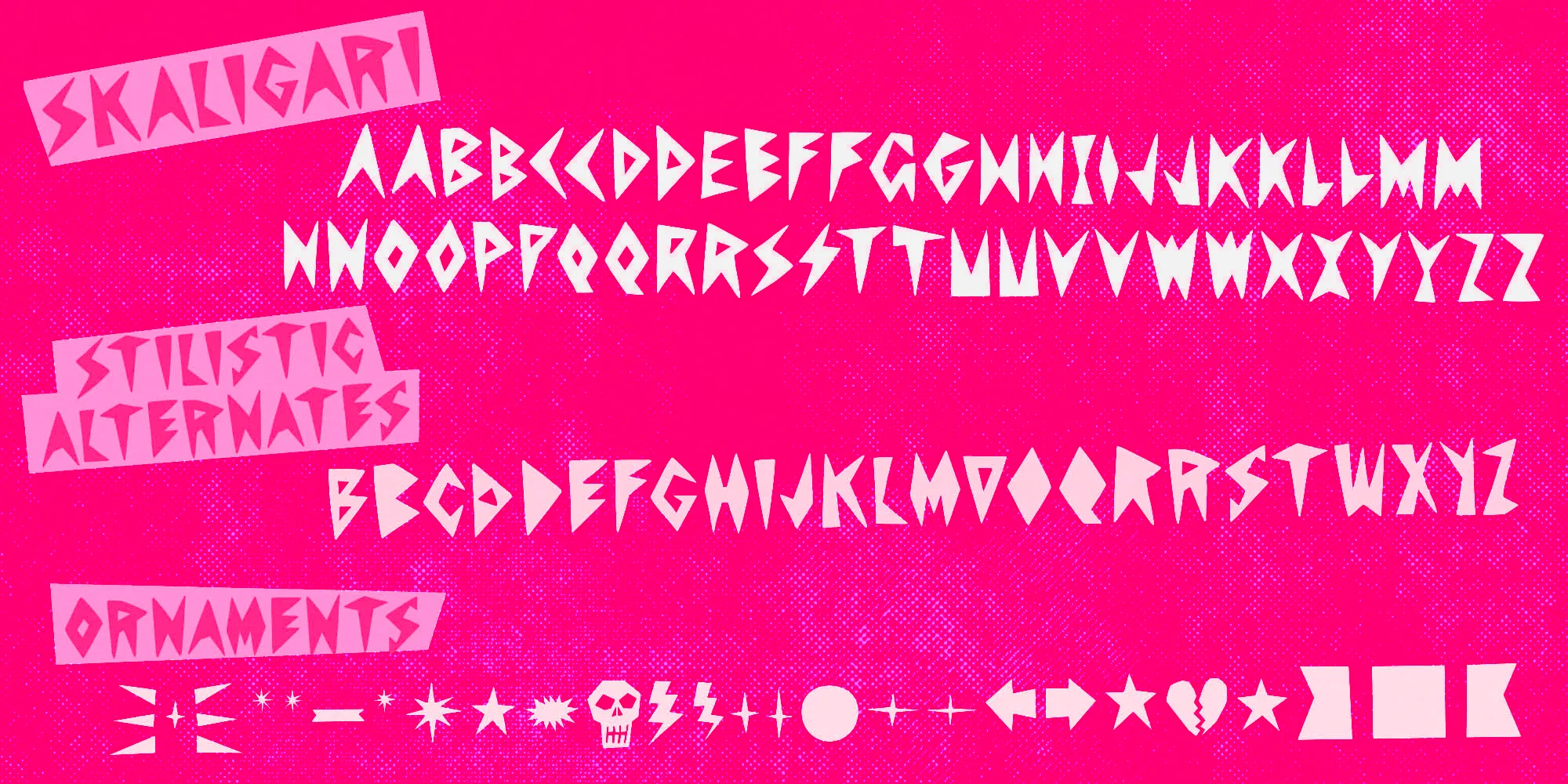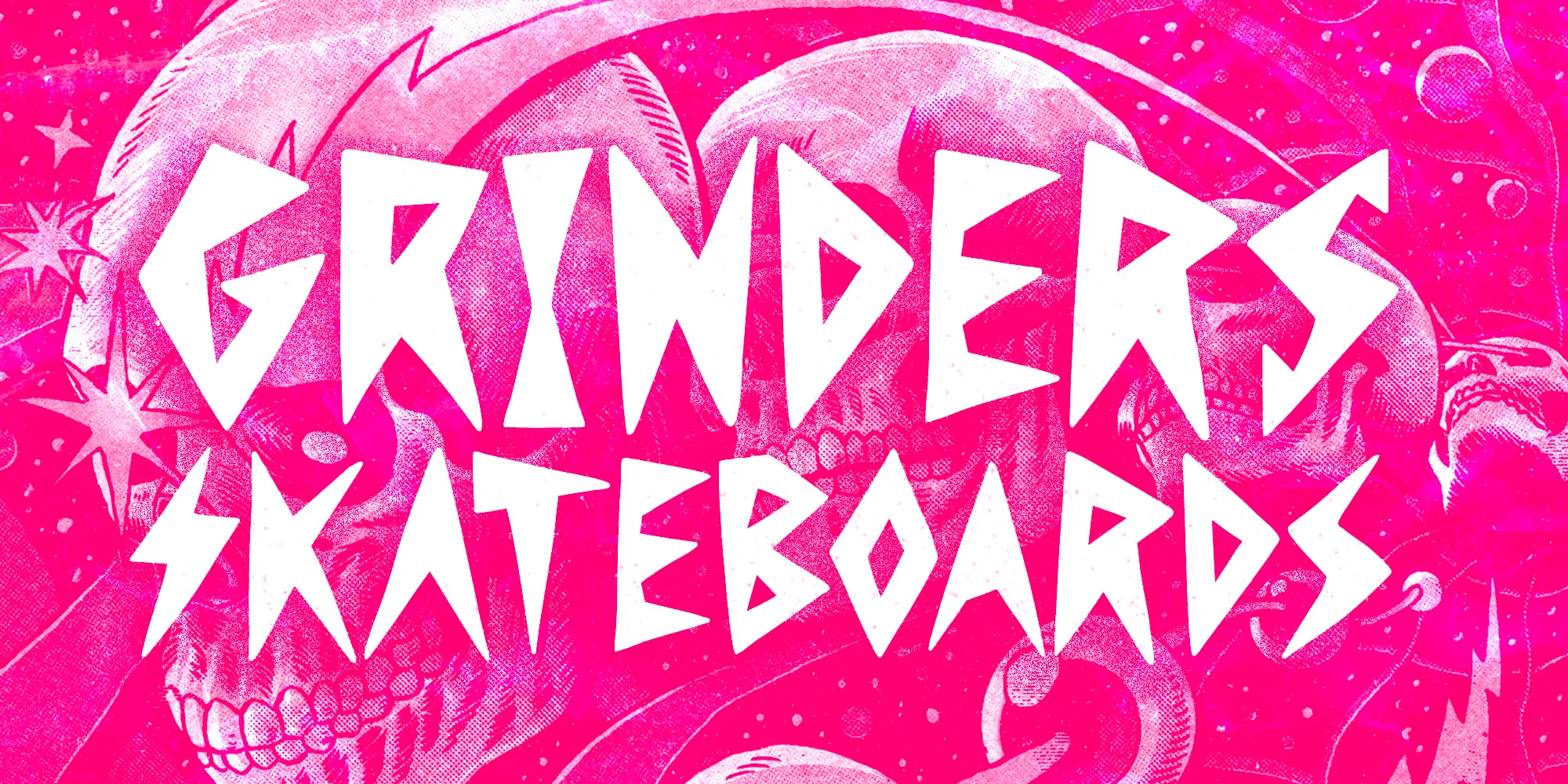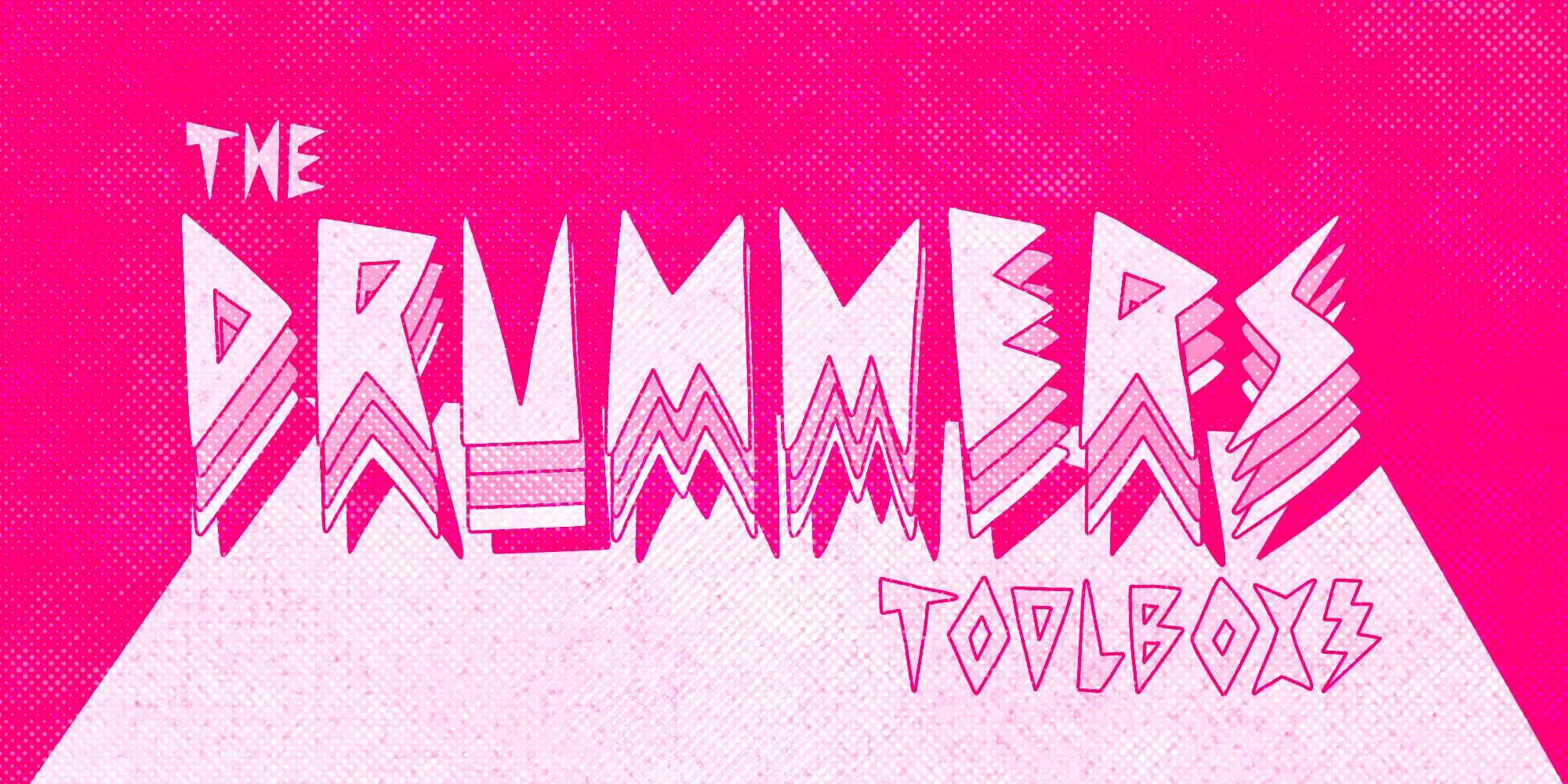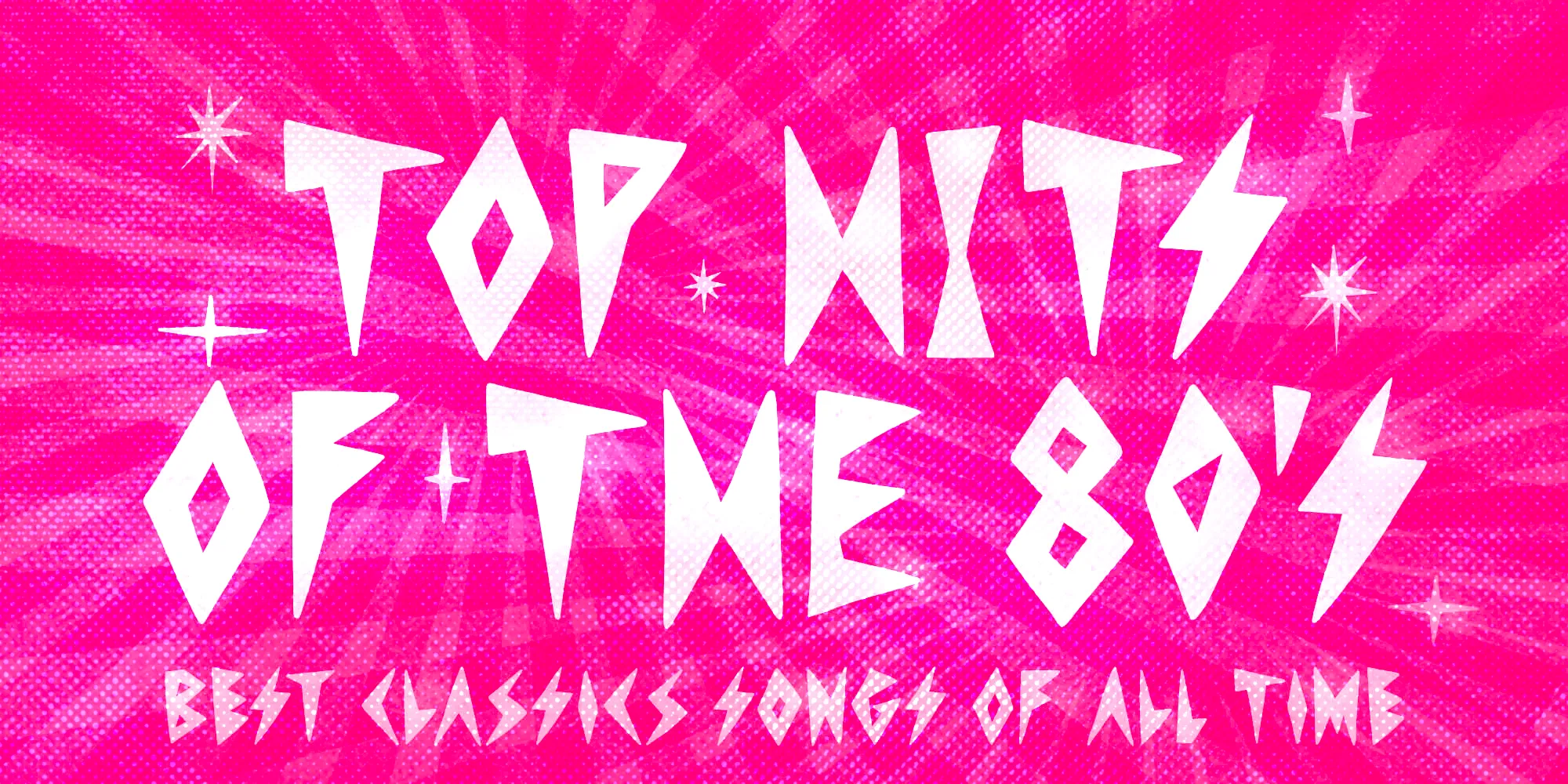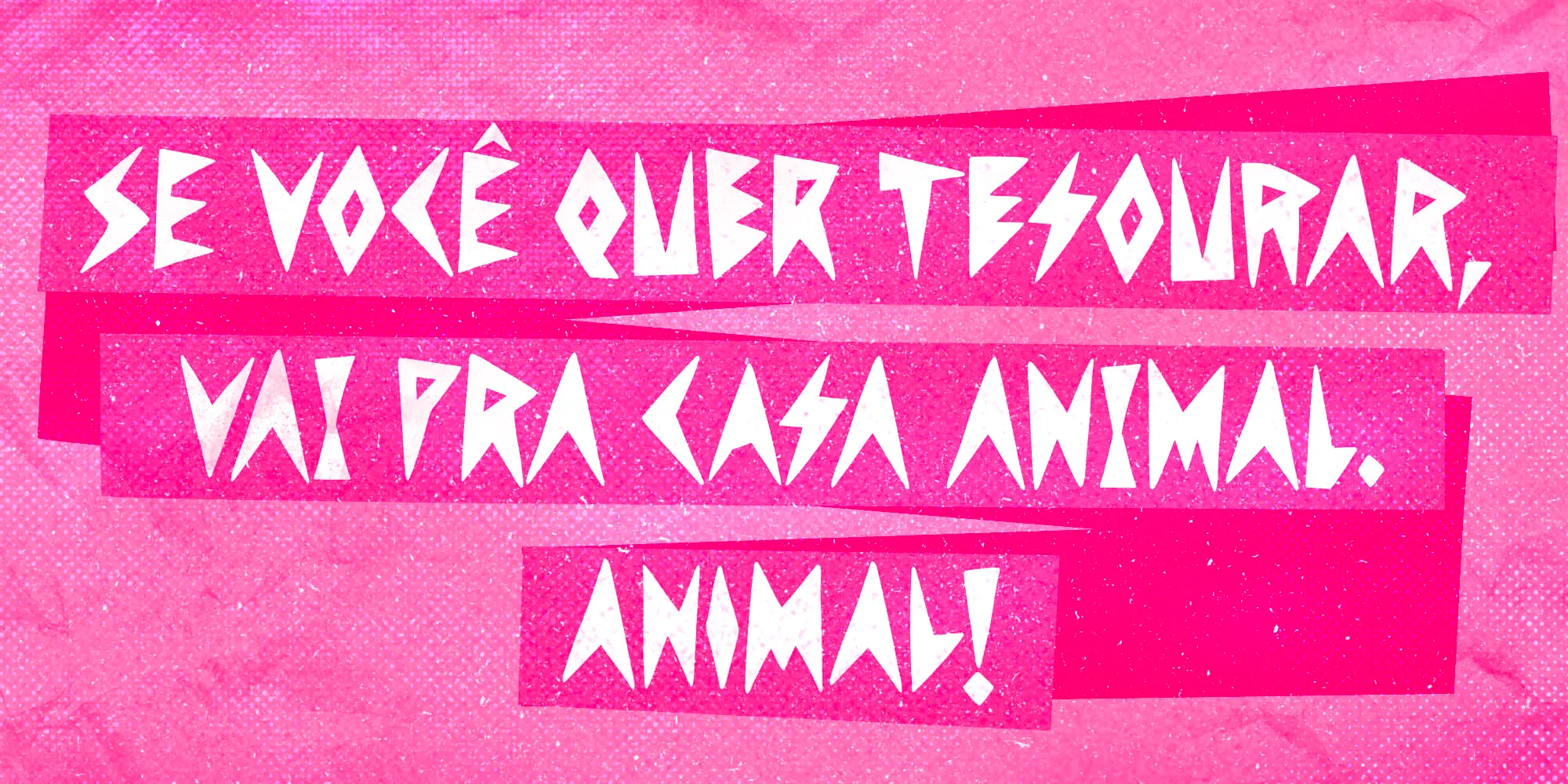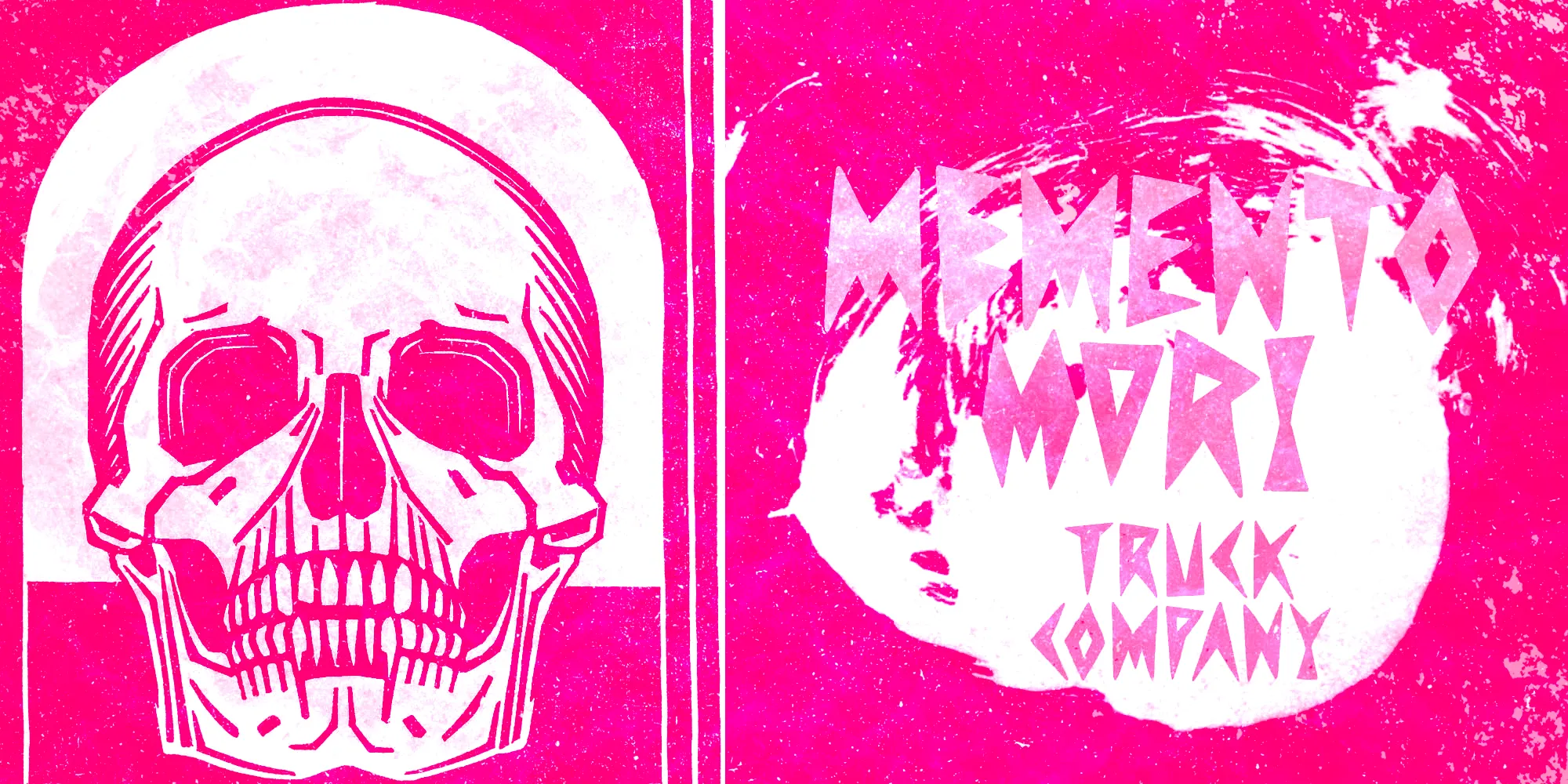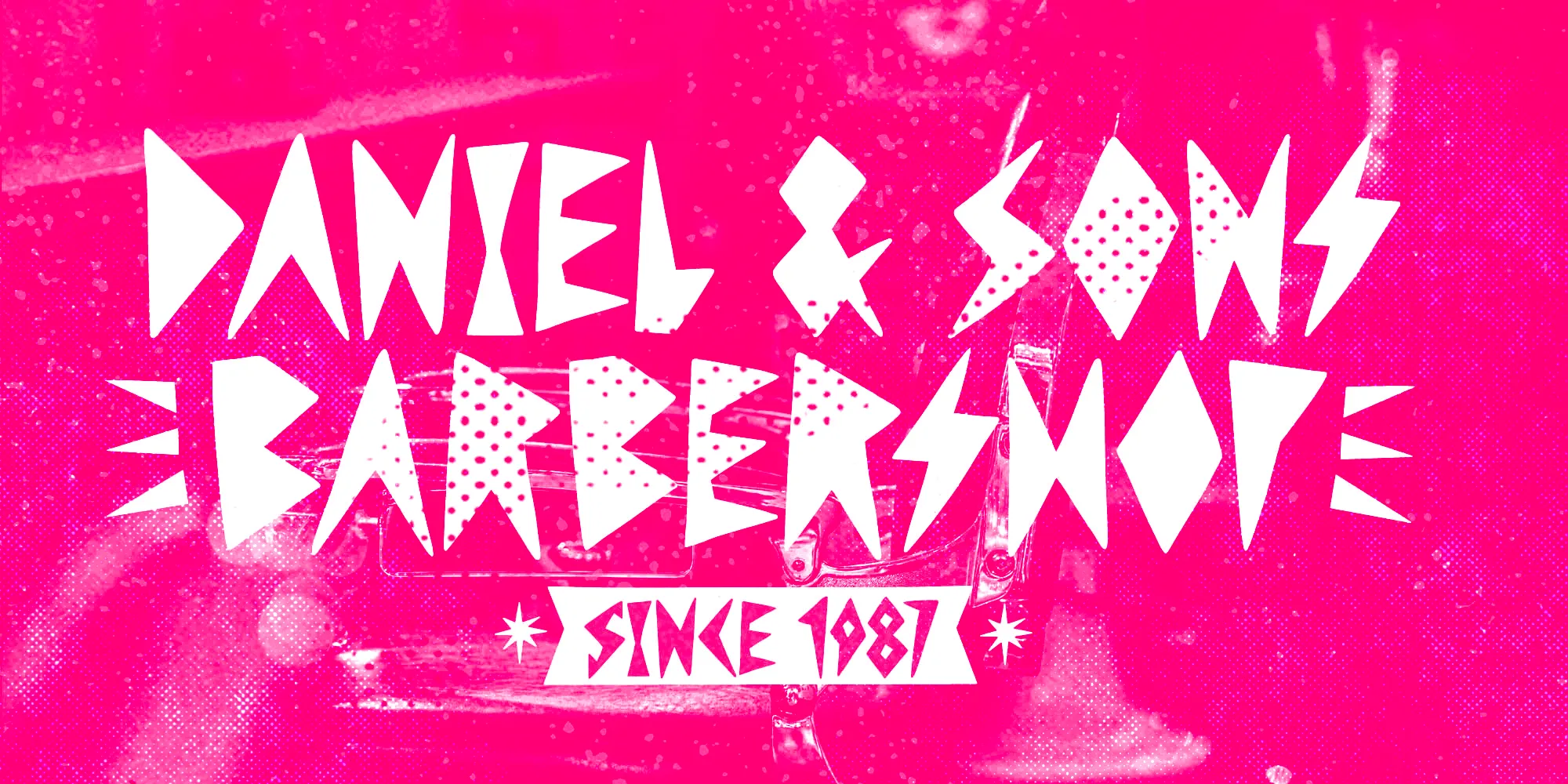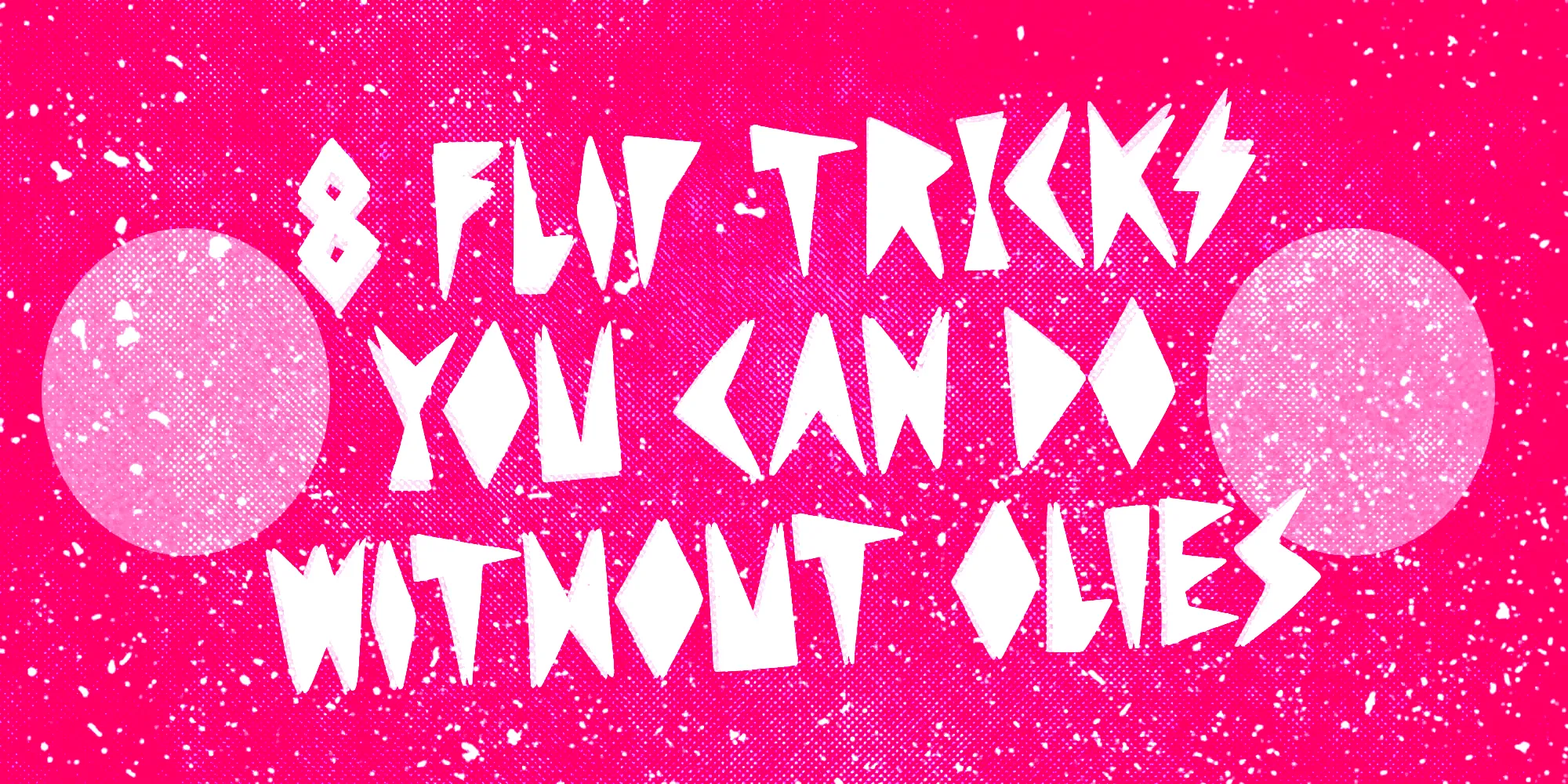
Skaligari
Skaligari is a sharp and energetic typeface design that cuts all the right corners. A little expressionistic, eighties, punk, and new wave — always edgy. It’s an all-caps font with two options for each letter and numeral. Wild and full of energy, Skaligari is a winning choice for sports and music-related ideas, skate films, music labels, logos, apparel, and zines. Creativity has no limits; how about some wedding invitations? Just be sure to play it loud!
- Fractions
- Ordinal Numerals
- Ornaments
- Stylistic Alternates
- Stylistic Sets
- Superscript